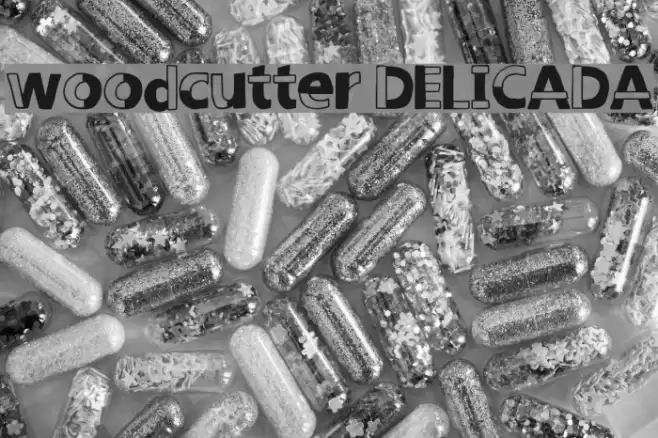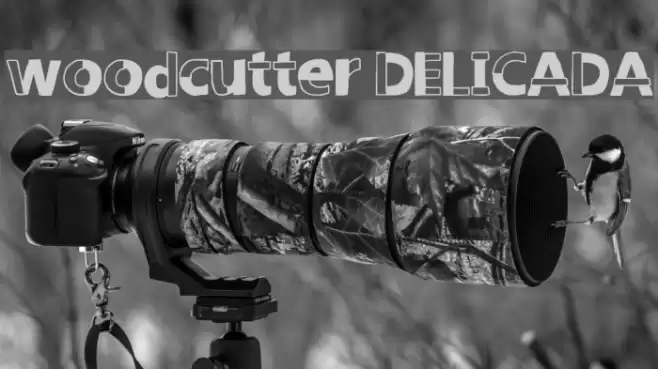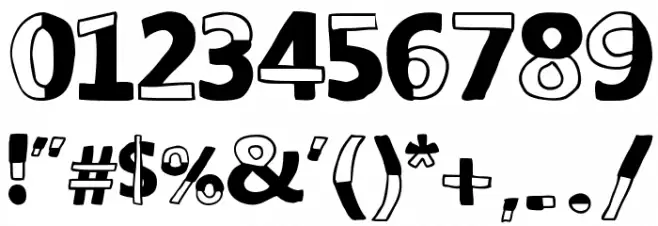
woodcutter DELICADA Font
woodcutter DELICADA Description
This font features a playful and bold design with a mix of solid and outlined characters, creating a dynamic and eye-catching appearance. The uppercase and lowercase letters maintain a consistent style, with each character having a unique blend of filled and hollow sections. The numbers and special characters follow the same design principles, ensuring a cohesive look across all elements. The font's quirky and artistic style makes it ideal for creative projects that require a touch of whimsy and boldness.
A playful, bold font with a mix of solid and outlined characters from Uncategorized fonts.
- Proposed Projects: Ideal for children's books, playful branding, posters, and creative invitations.
- Overall Style: Playful, Artistic